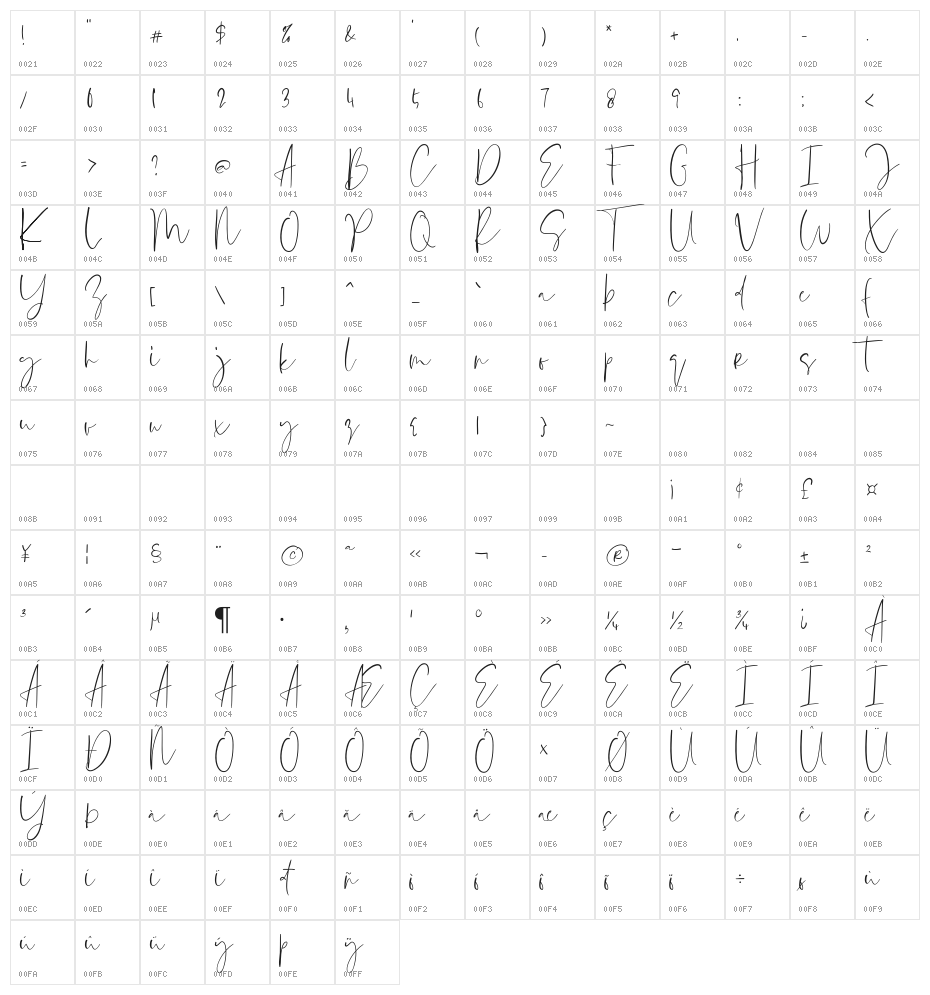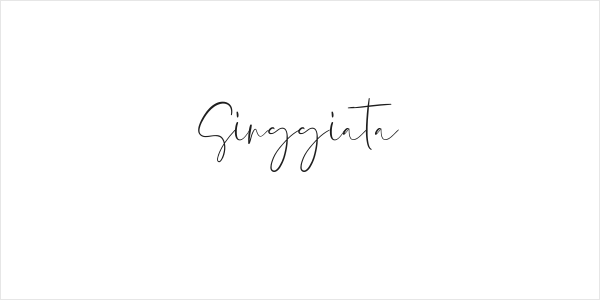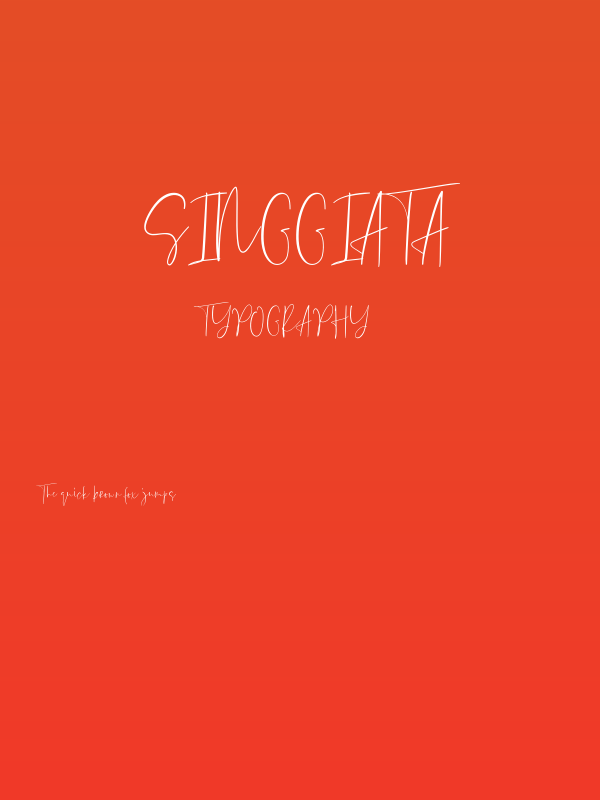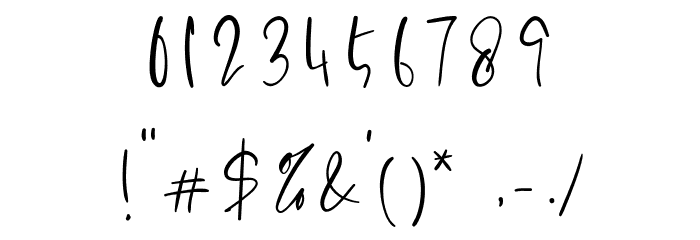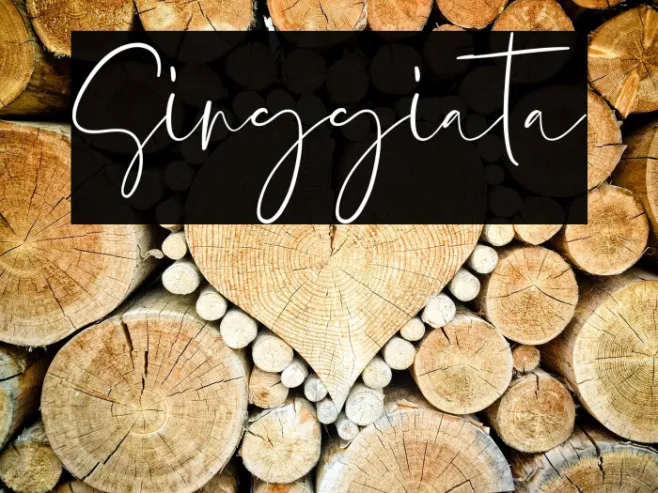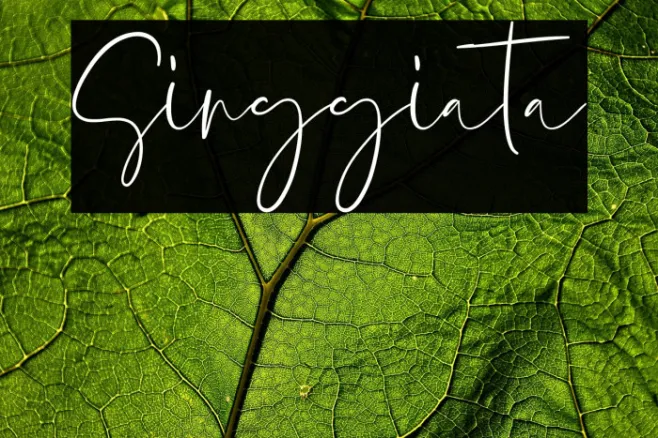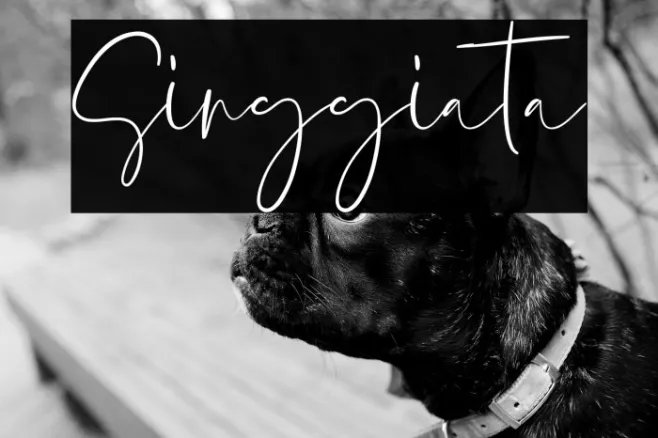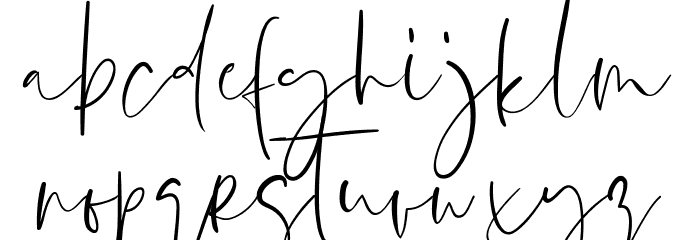
Singgiata Font
Singgiata Description
This font exudes a lively and expressive handwritten style, characterized by its fluid and dynamic strokes. The letters are crafted with a natural flow, giving an impression of spontaneity and creativity. The uppercase letters are tall and slender, while the lowercase letters maintain a consistent rhythm, enhancing readability. The numbers and special characters are designed with the same playful and artistic flair, making them suitable for a variety of creative applications. The overall appearance is both elegant and casual, making it perfect for projects that require a personal touch.